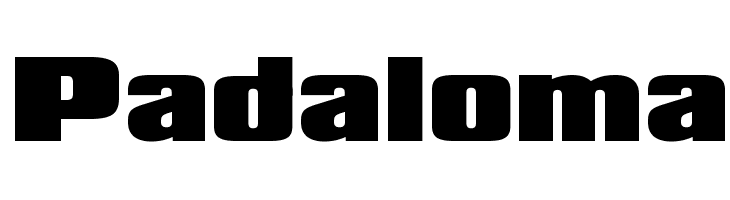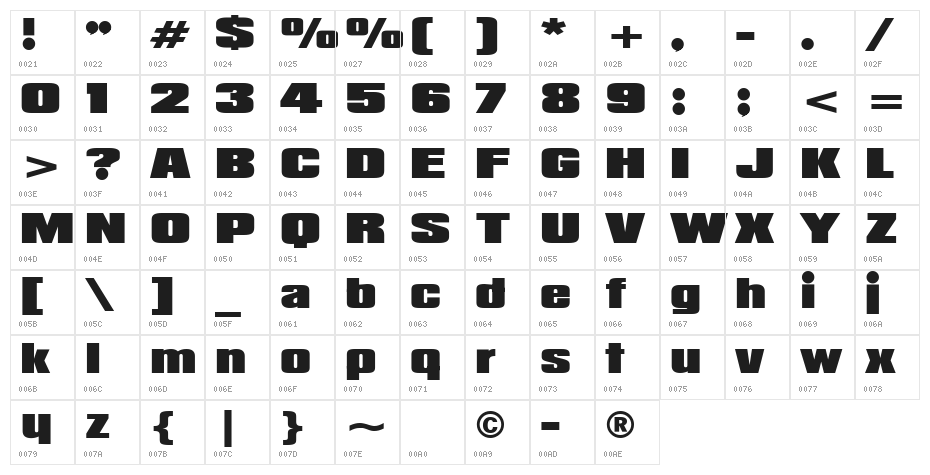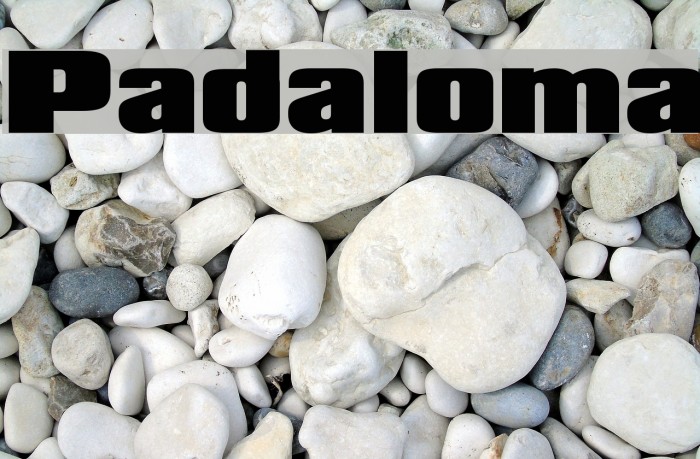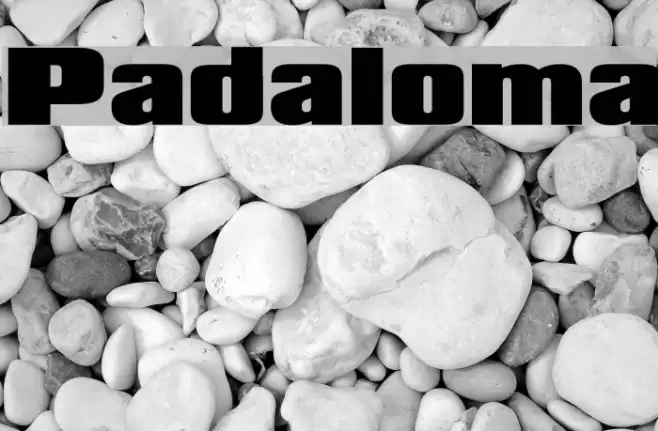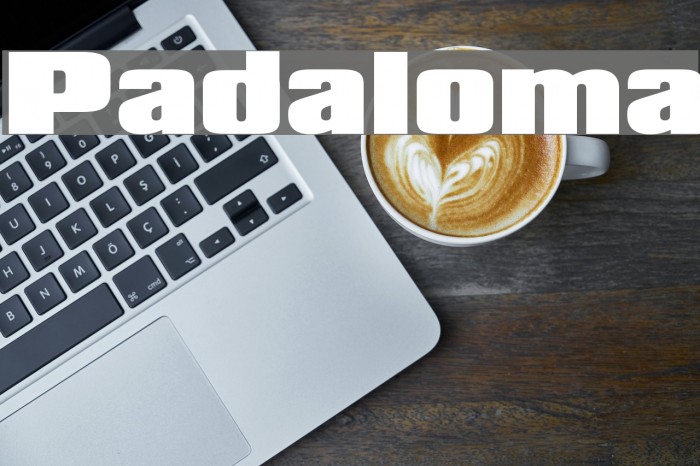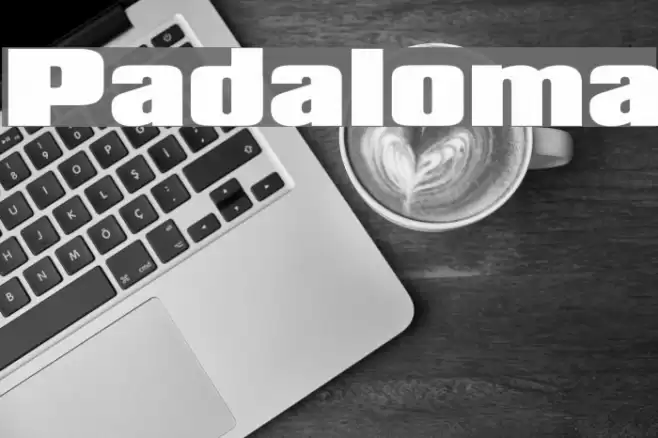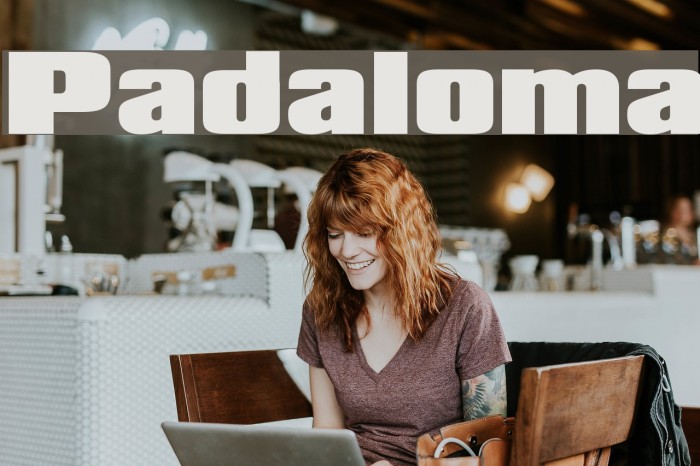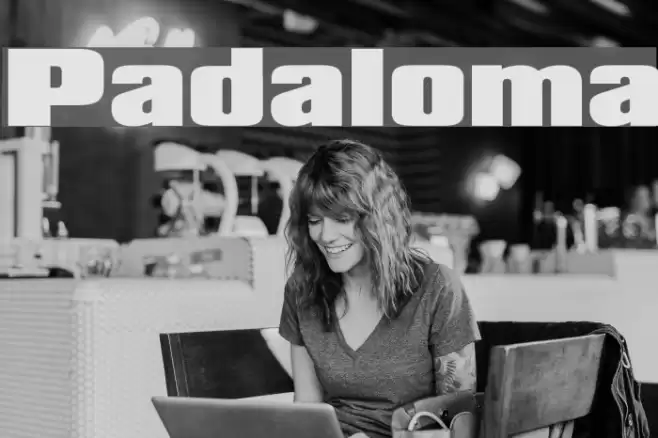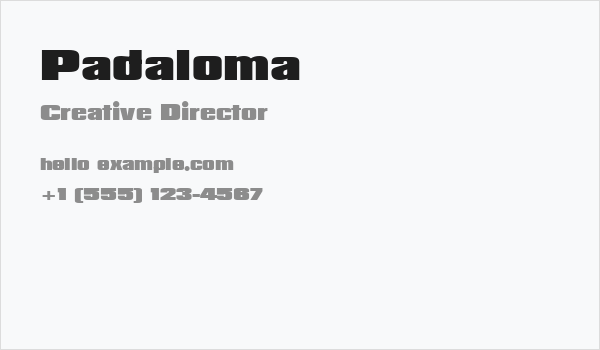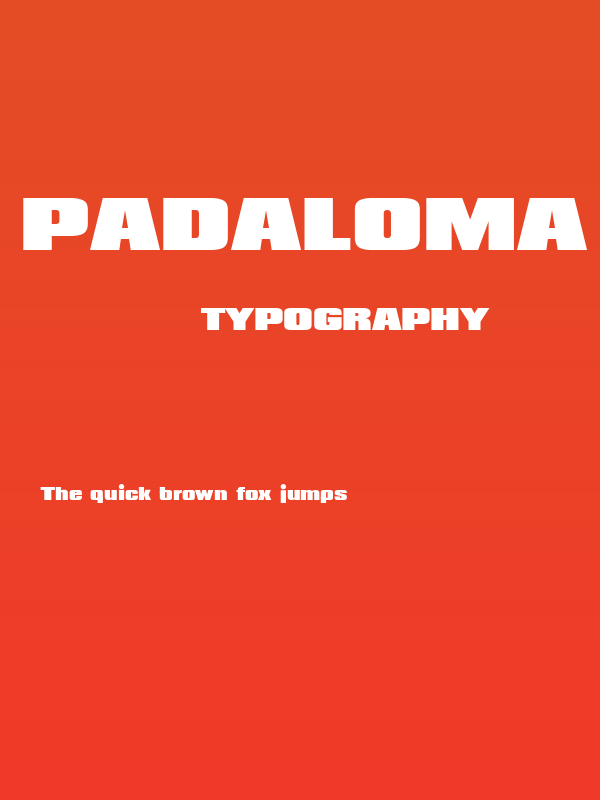
Padaloma Font
Padaloma Description
This font features bold, heavy strokes with a strong presence, making it ideal for impactful headlines and attention-grabbing designs. The uppercase letters are particularly robust, with a uniform thickness that conveys strength and stability. The lowercase letters maintain the same boldness, ensuring consistency across all text. Numbers and special characters are equally bold, providing a cohesive look throughout. The font's design is straightforward yet powerful, with minimal contrast in stroke thickness, emphasizing its solid and commanding appearance.
| Proposed Projects | Ideal for posters, headlines, branding materials, and any design requiring a strong visual impact. |